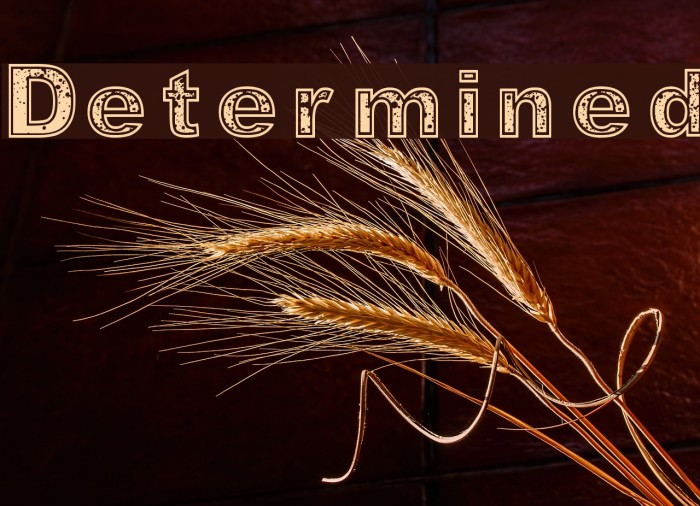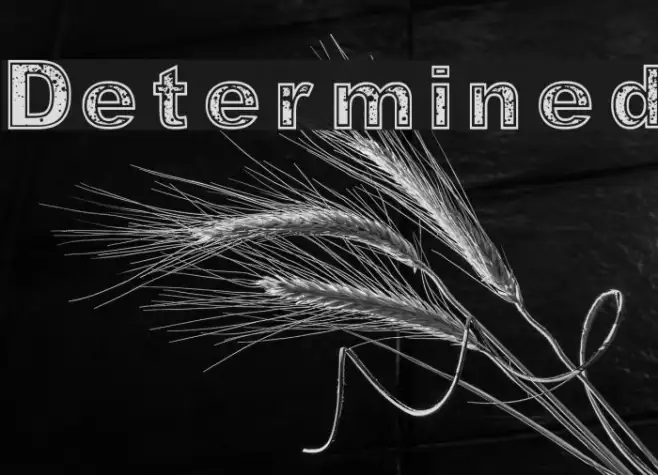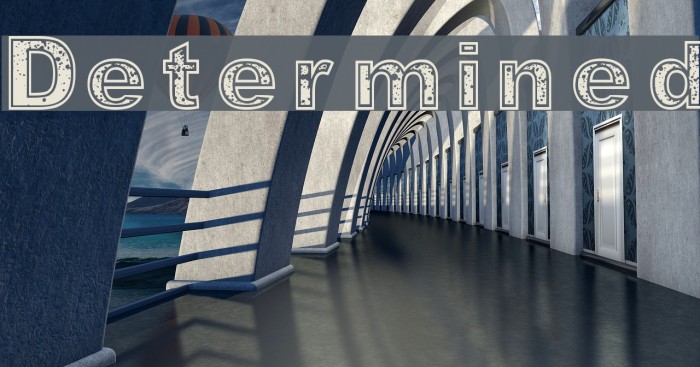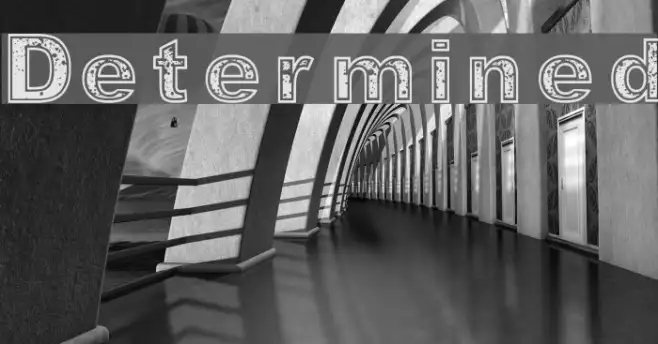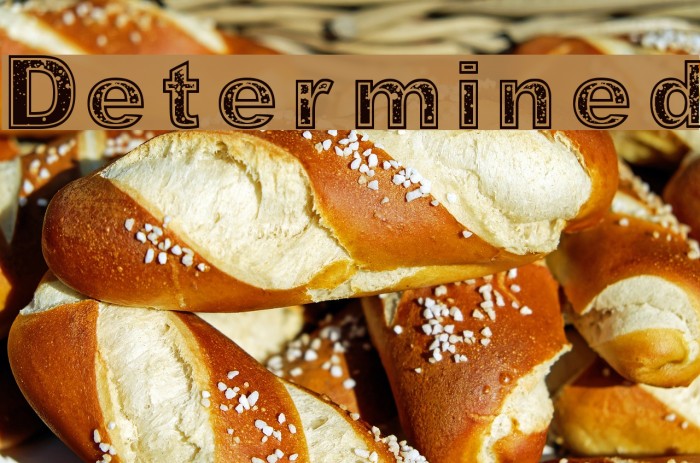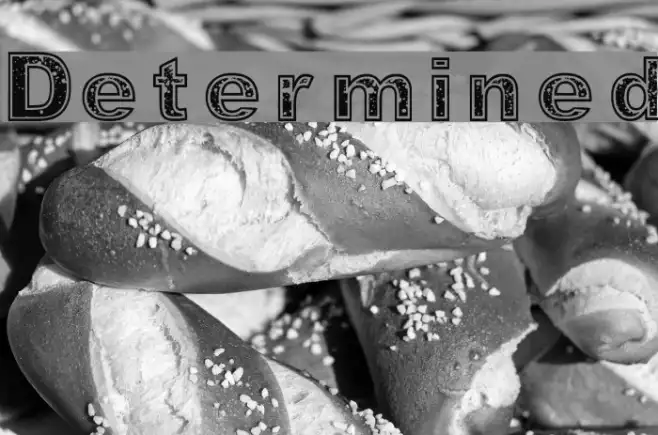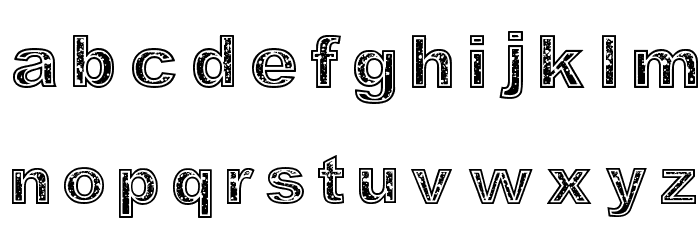
Determined Font
This font features a bold, distressed look with a textured, grunge effect that gives it a rugged and vintage appearance. The uppercase and lowercase letters maintain a consistent style, with each character exhibiting a worn, weathered look that adds character and depth. The numbers and special characters follow the same design, ensuring a cohesive appearance across all elements. The font's boldness and unique texture make it stand out, ideal for projects that require a strong visual impact. Its decorative style is perfect for creating eye-catching headlines, posters, and branding materials that need a touch of edginess and personality.
A bold, distressed font with a textured, grunge effect for a rugged, vintage look.
• Proposed Projects: Ideal for posters, branding, album covers, and any project needing a bold, vintage aesthetic.